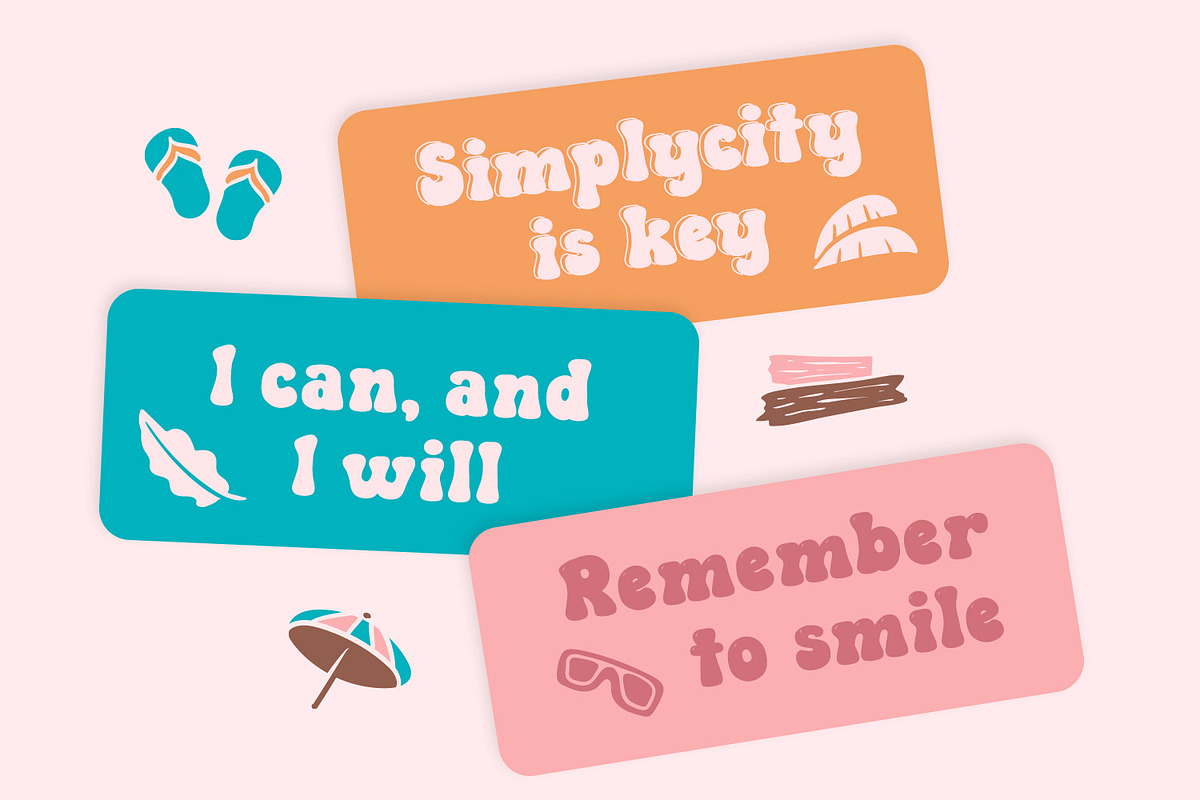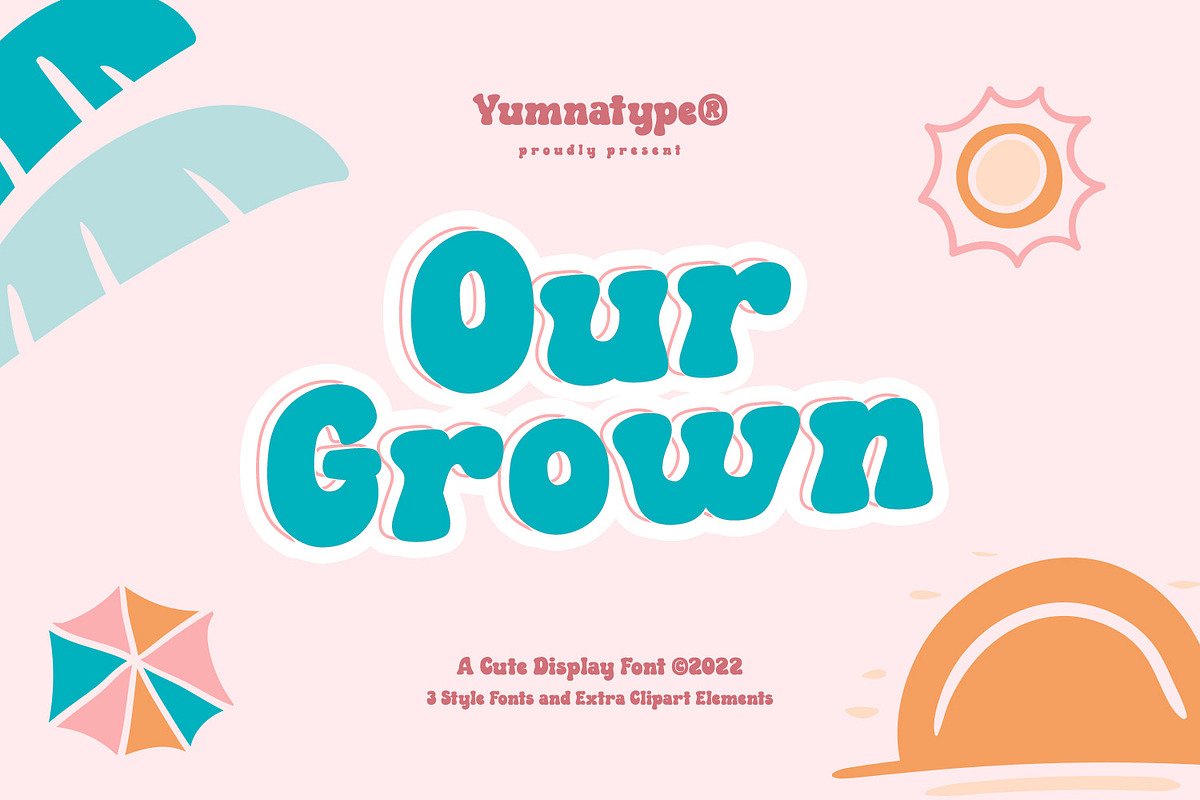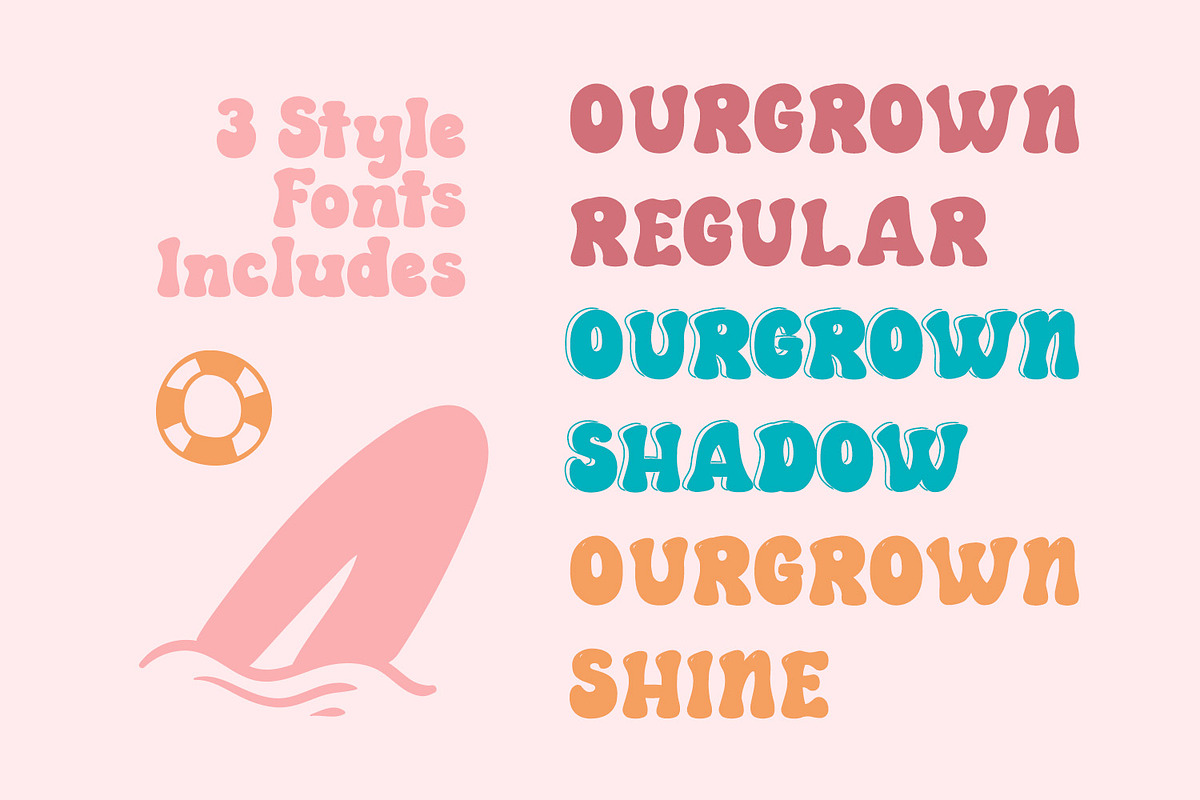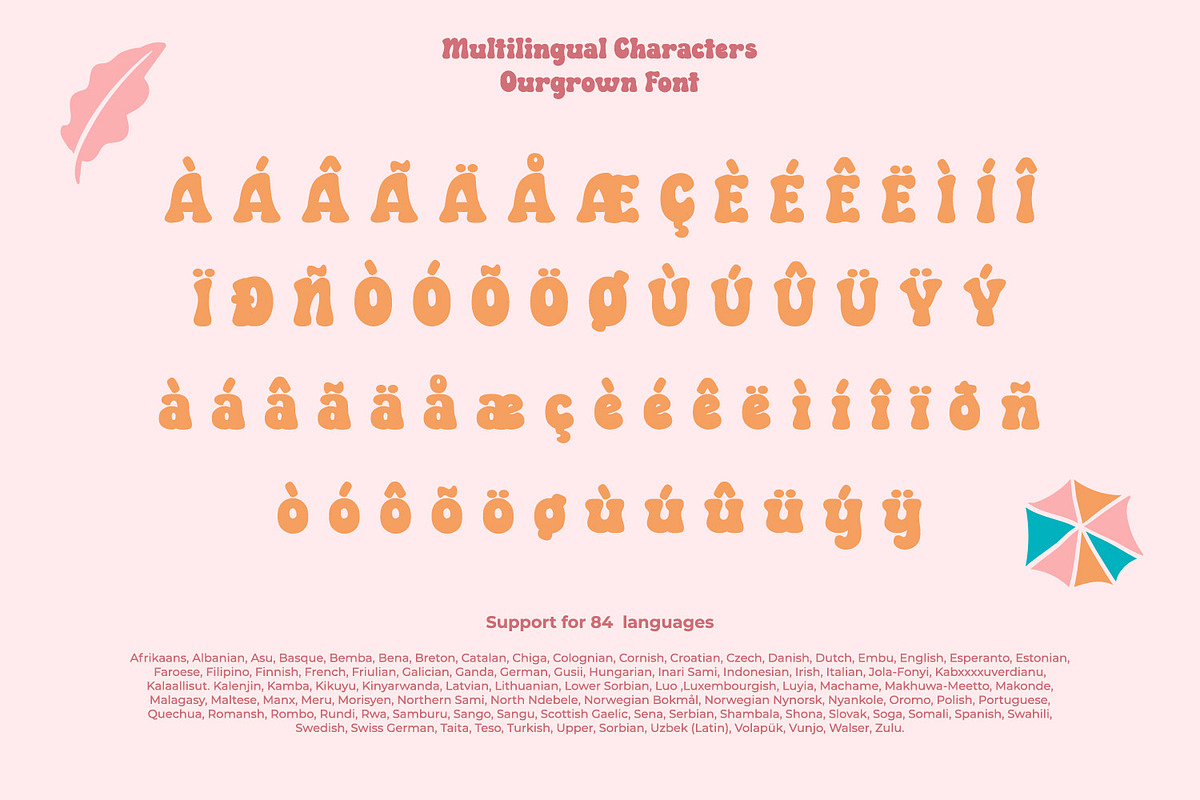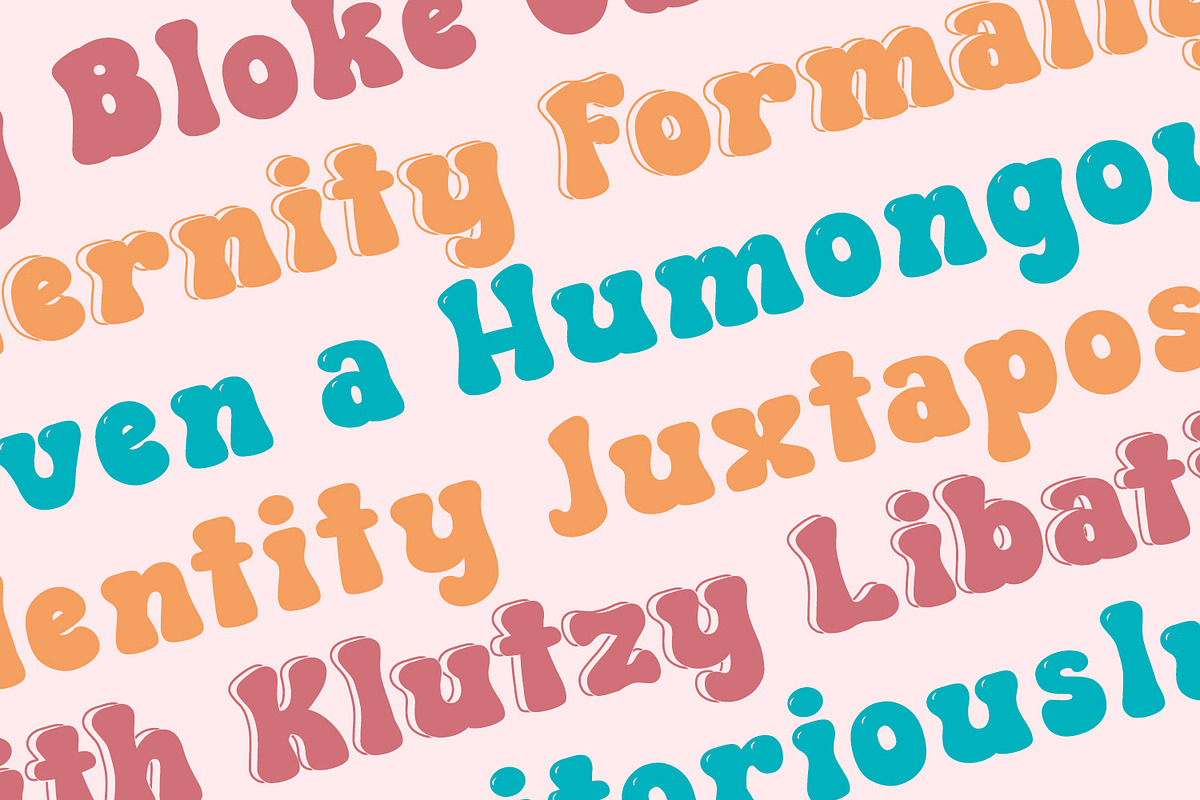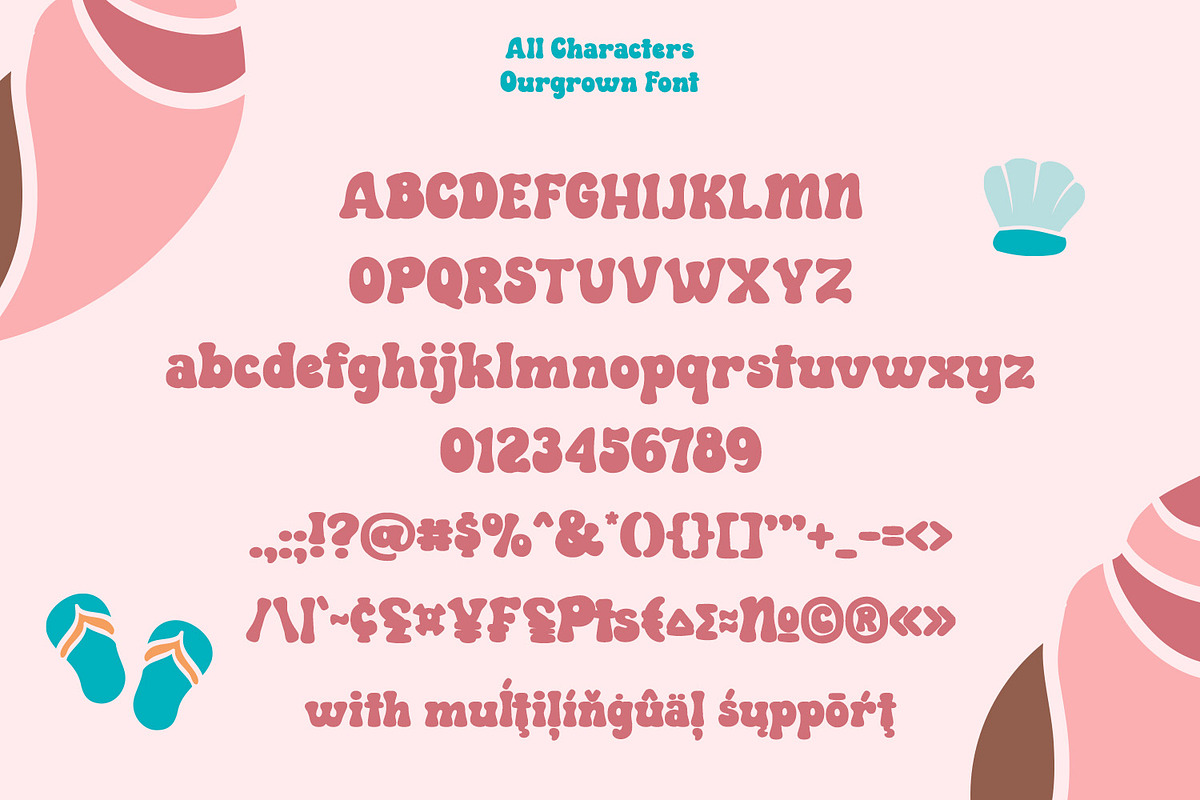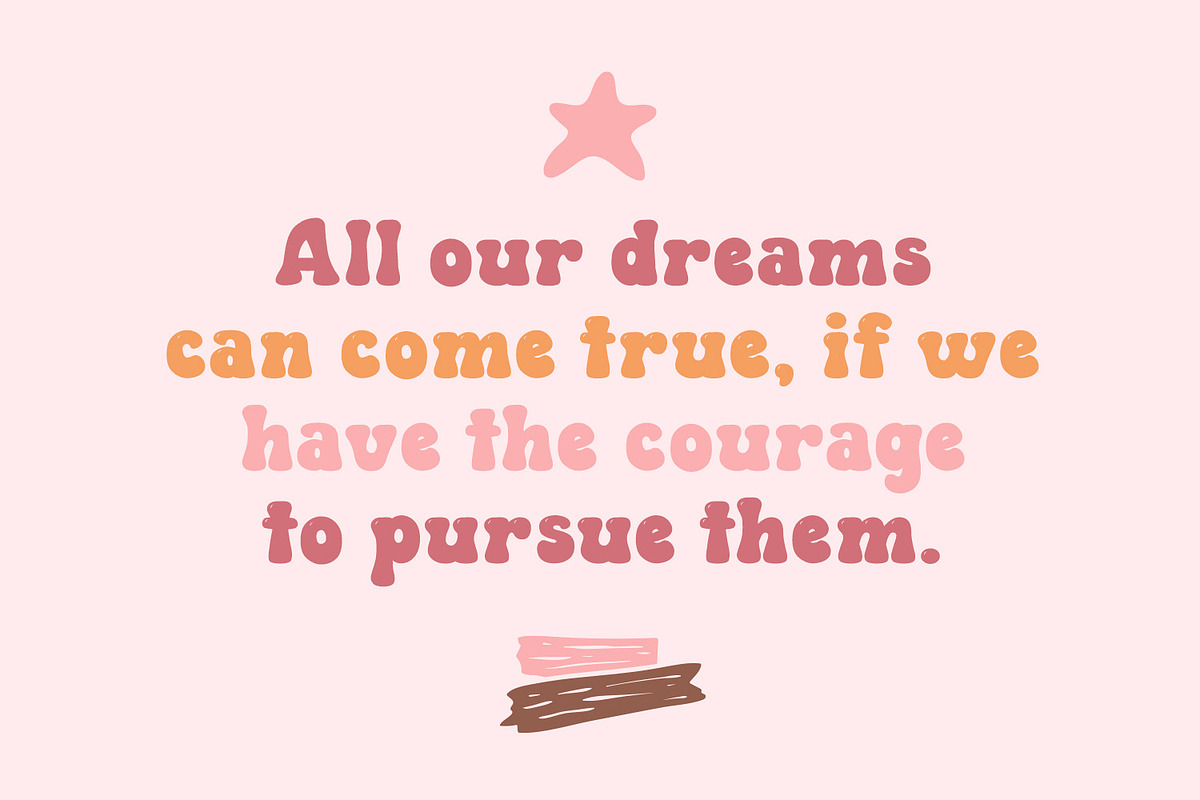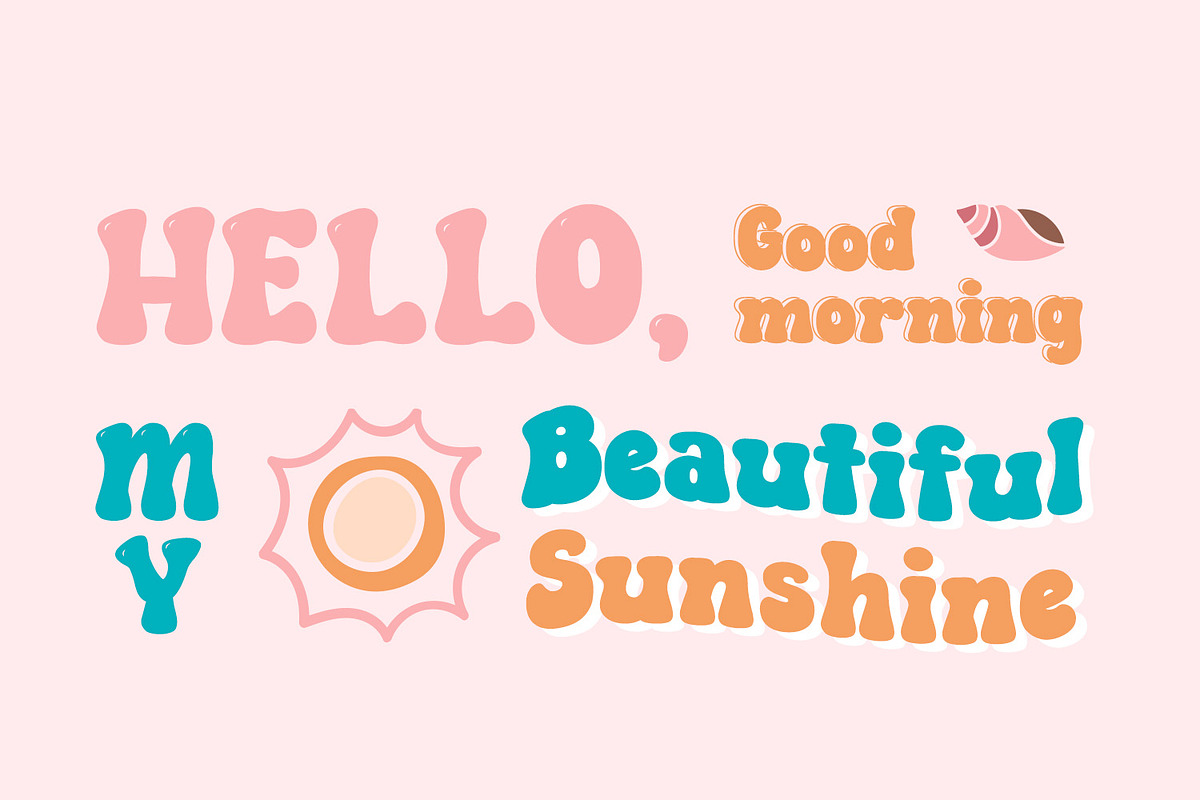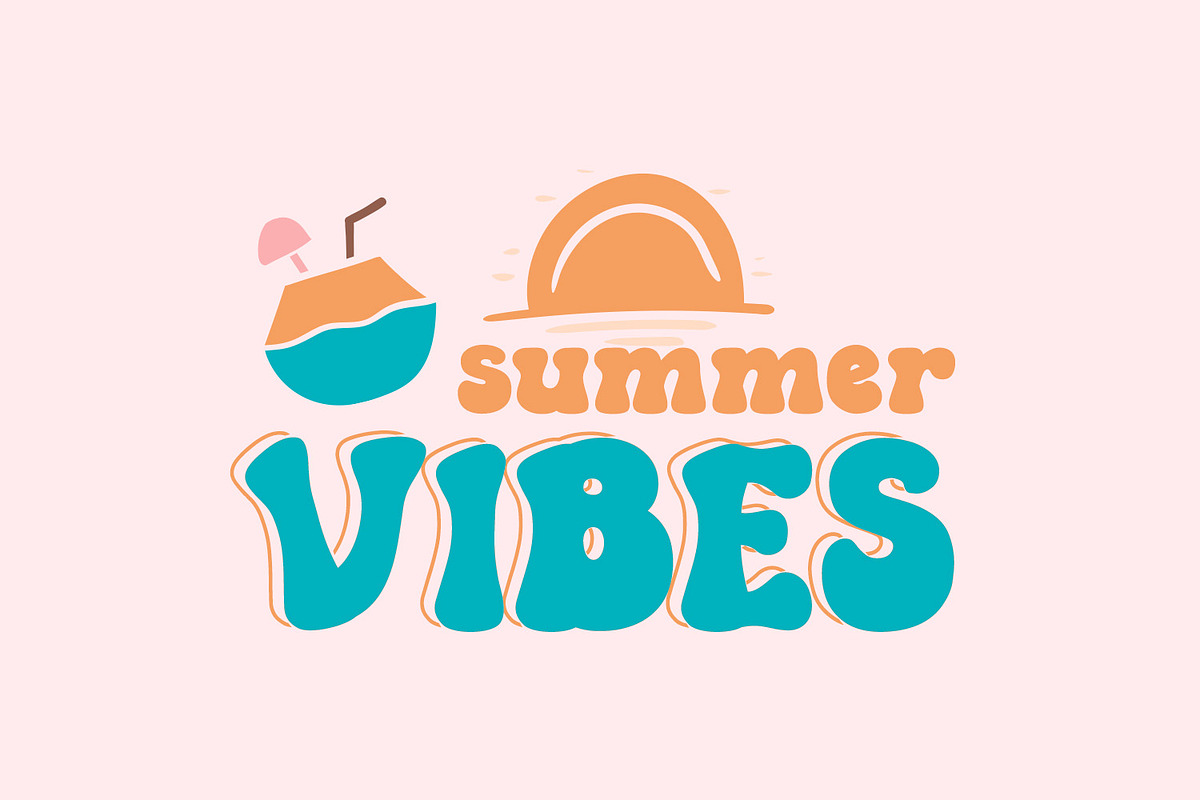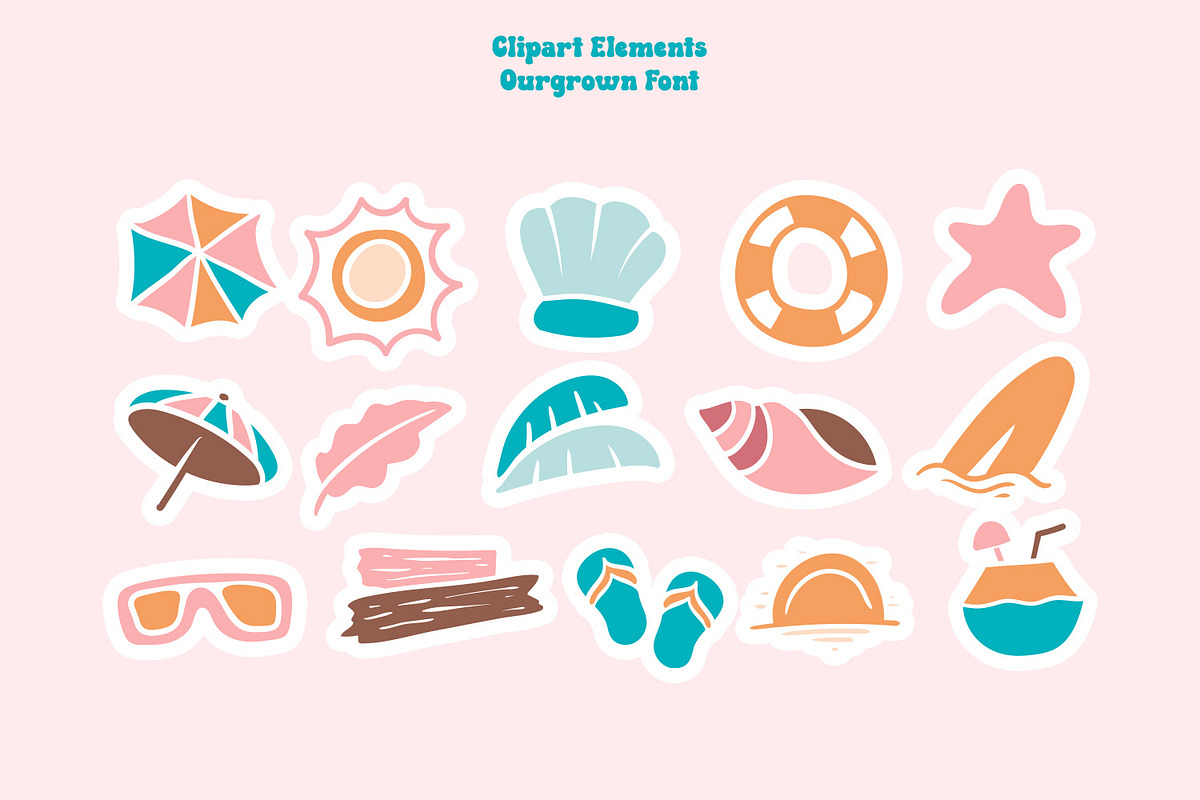
Ourgrown
Ourgrown is an awesome display font. It projects friendly, cute, and warm feel. The weight of characters makes this font easy to read and works equally well in header and body text. On the other hand, the shape curves, and shadow style brings a sense of cuteness. This font family also includes special illustrations that you can use as you wish.
This font would looks great on your branding, logos, social media quotes, stickers, posters, wall art, merchandise, social media, and many more. Get more inspiration about how to use it by seeing the font preview.